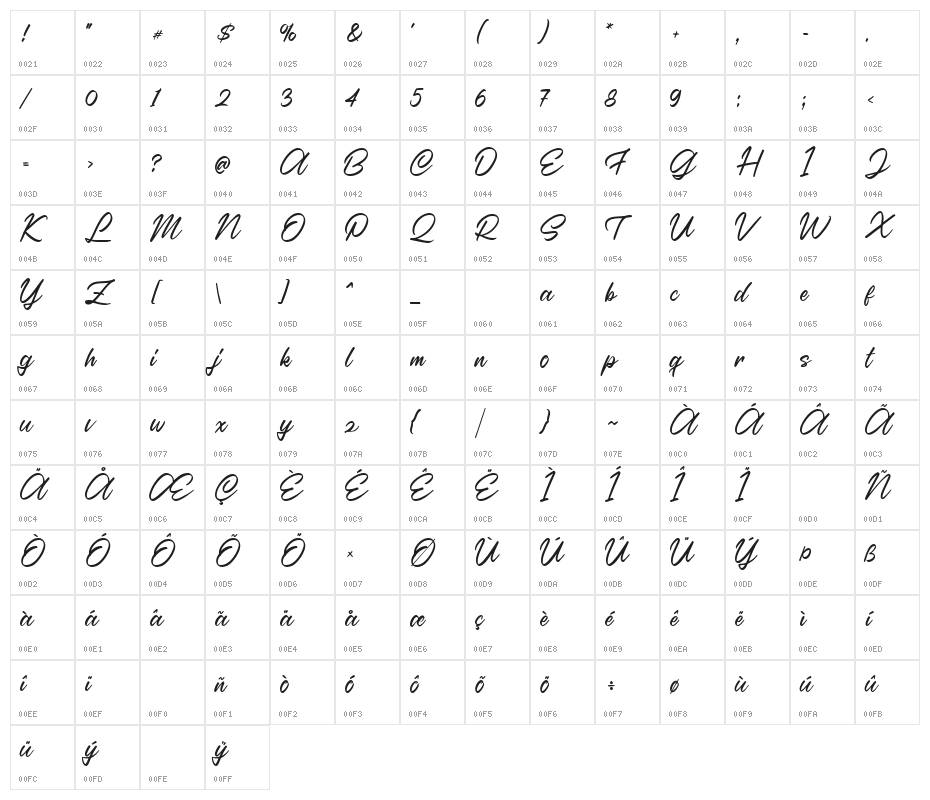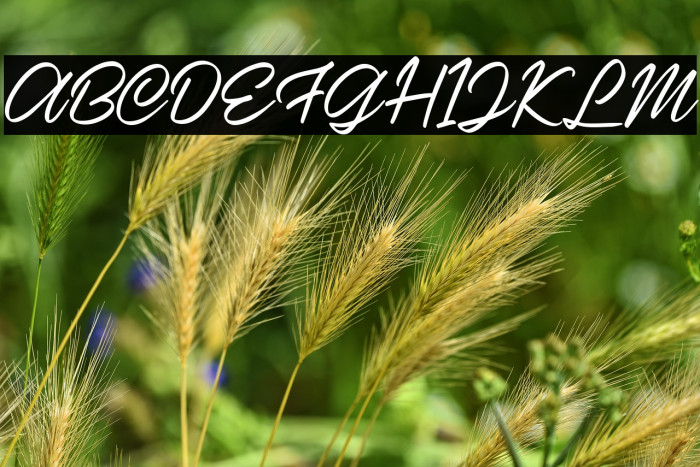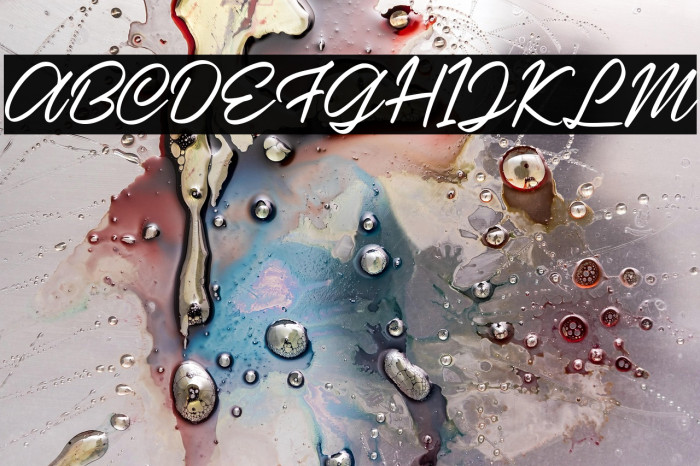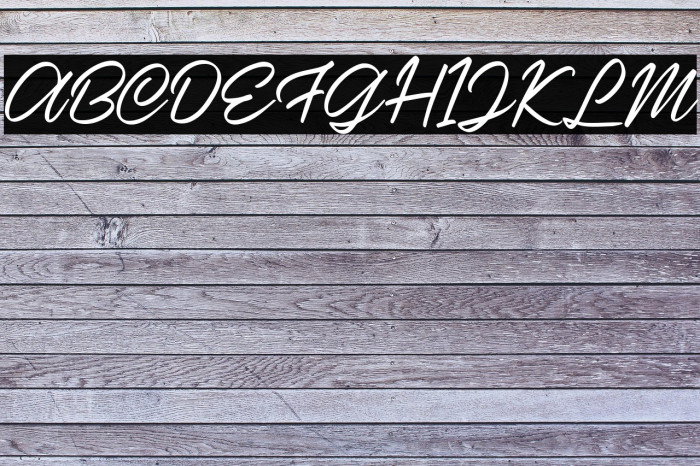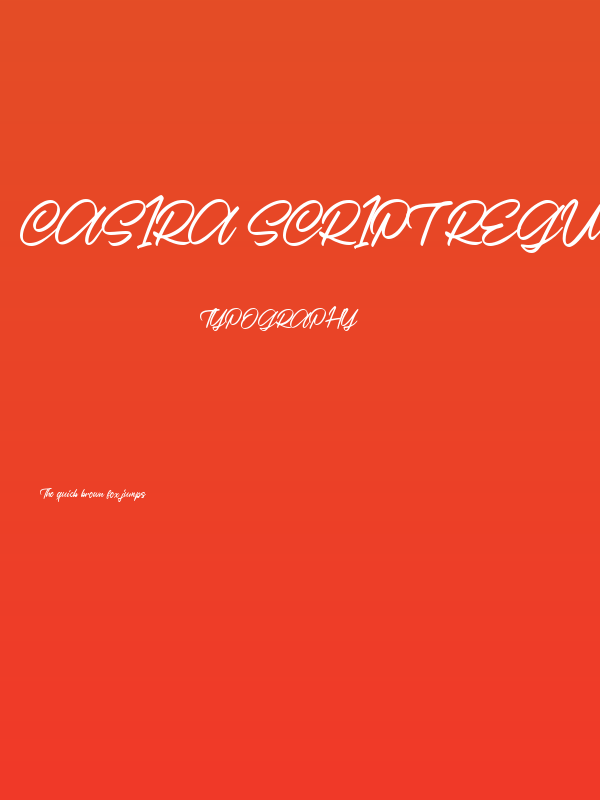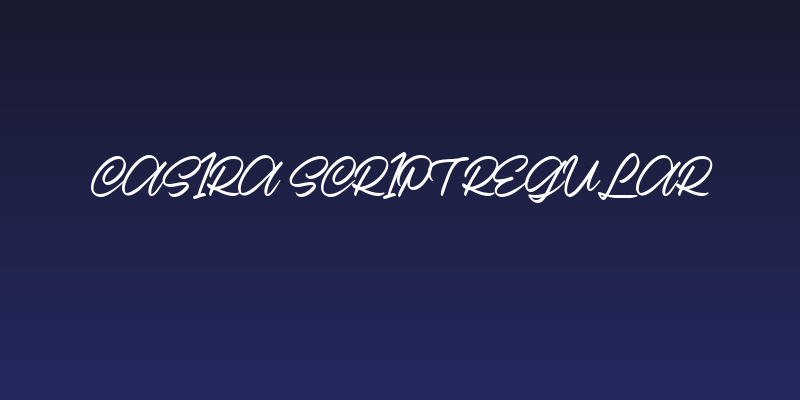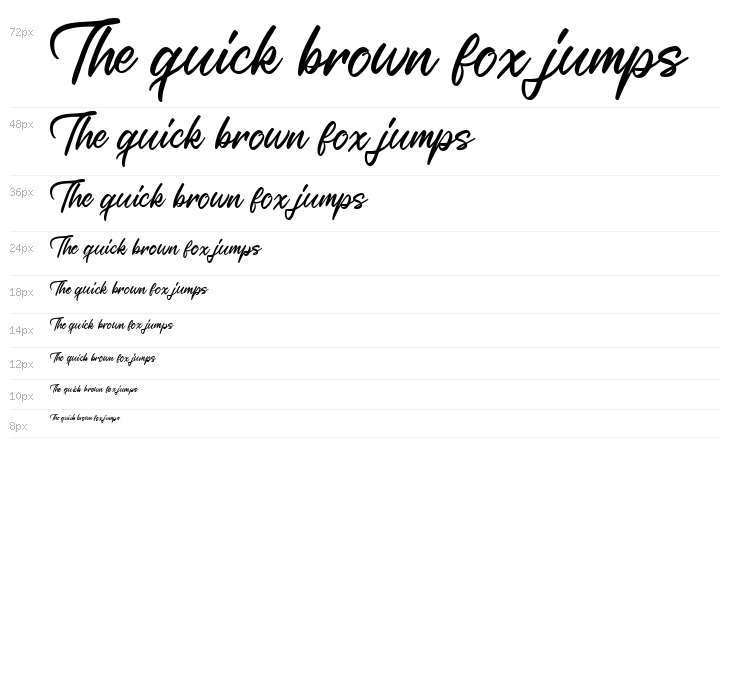
Casira Script Regular Font
Casira Script Regular Description
This elegant script font features fluid, cursive strokes that emulate the graceful flow of handwriting. The uppercase letters are bold and sweeping, with a distinctive flair that adds a touch of sophistication. Lowercase letters maintain a consistent, smooth connection, enhancing readability while preserving the font's artistic style. Numbers and special characters are crafted with the same attention to detail, ensuring a cohesive look across all text elements. The overall design is both classic and modern, making it versatile for various design needs.
| Overall Style | Classic |
| Use Case | Logos, Invitations, Greeting Cards |
| Proposed Projects | Ideal for wedding invitations, greeting cards, branding, and elegant logo designs. |